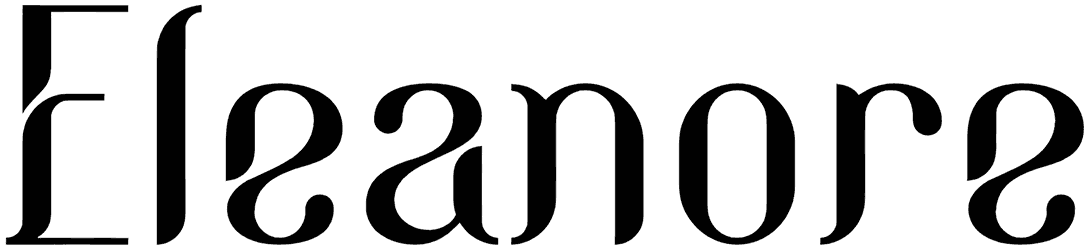
Eleanore Font
You can use such a font for a design that reflects a classic and original mood. This logo font, which is known as Eleanore, has a polished and unique style of characters. It doesn’t offer numerals, but still would be a chic illustration for varied novel designs from formal ones like logos to informal ones like social media posts.